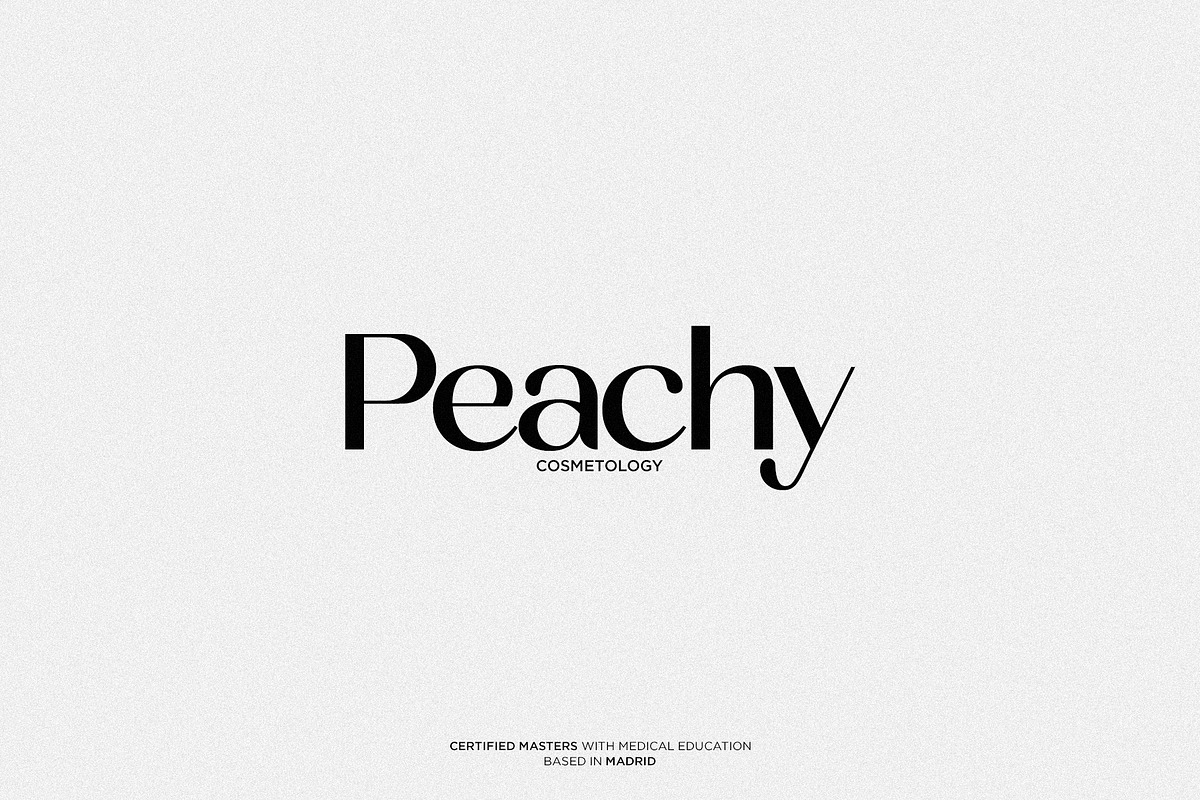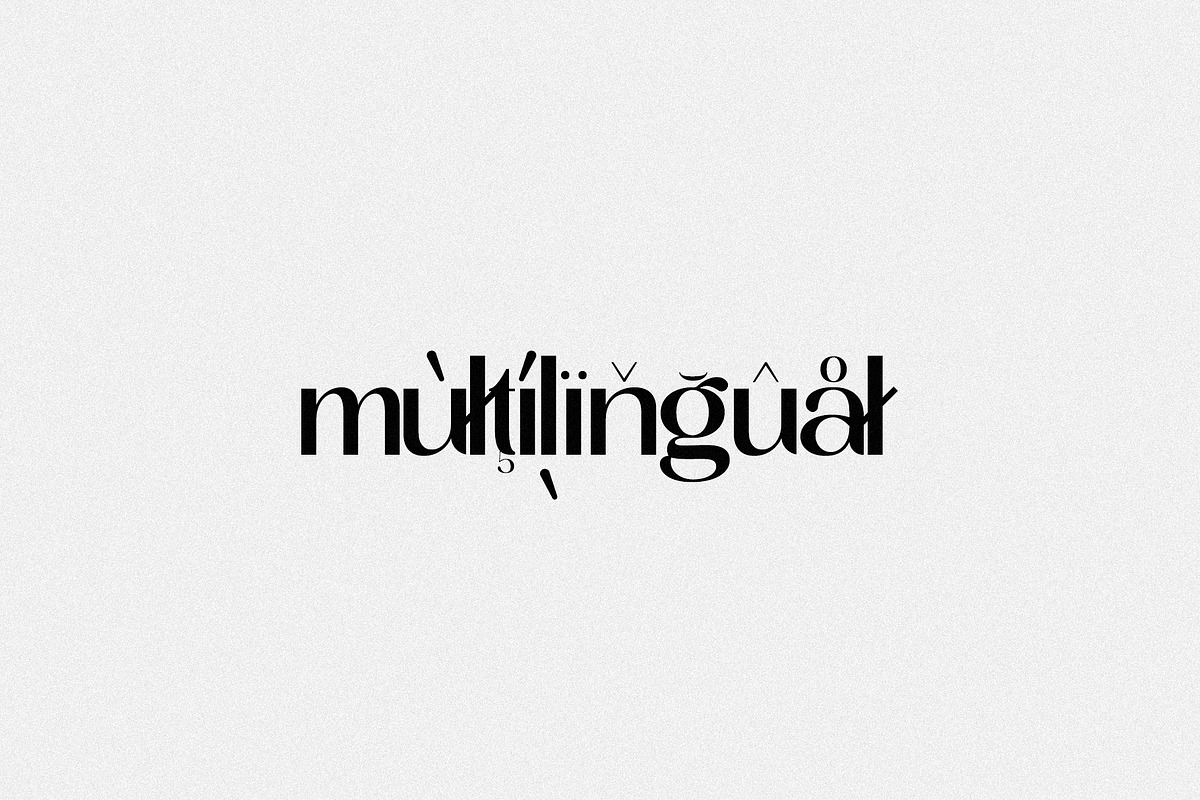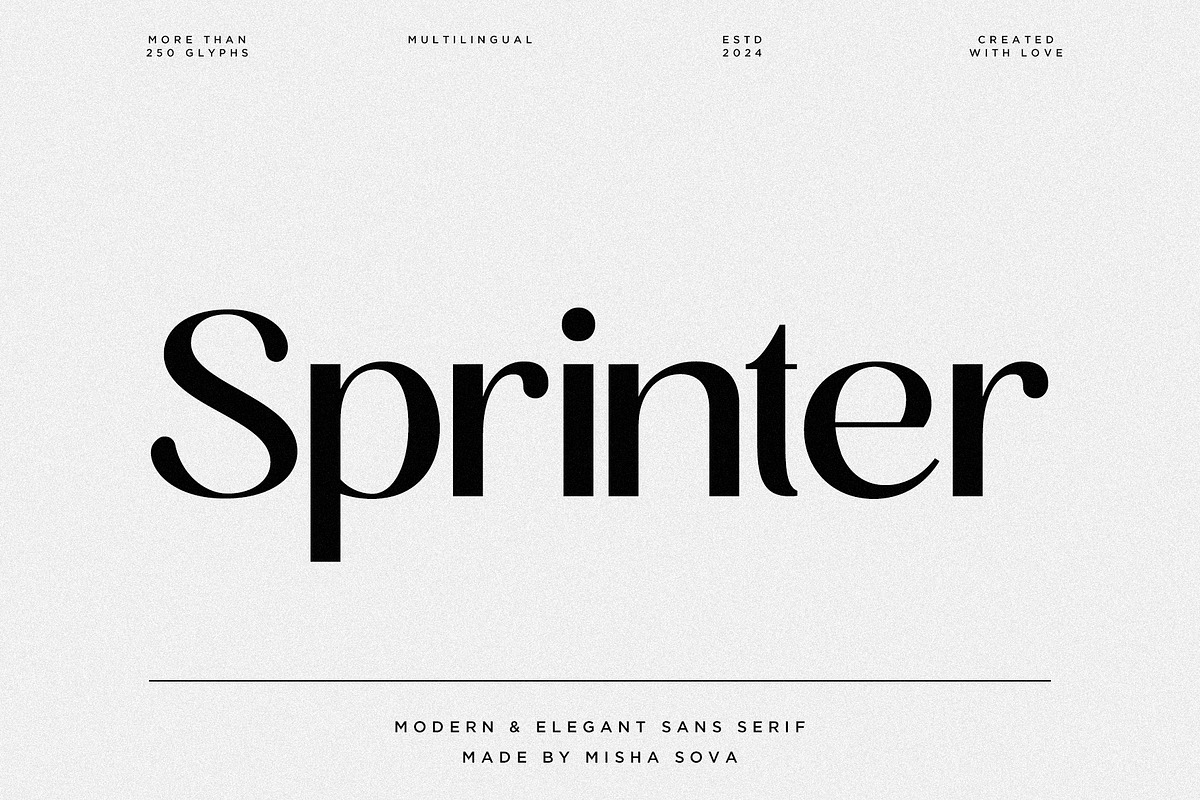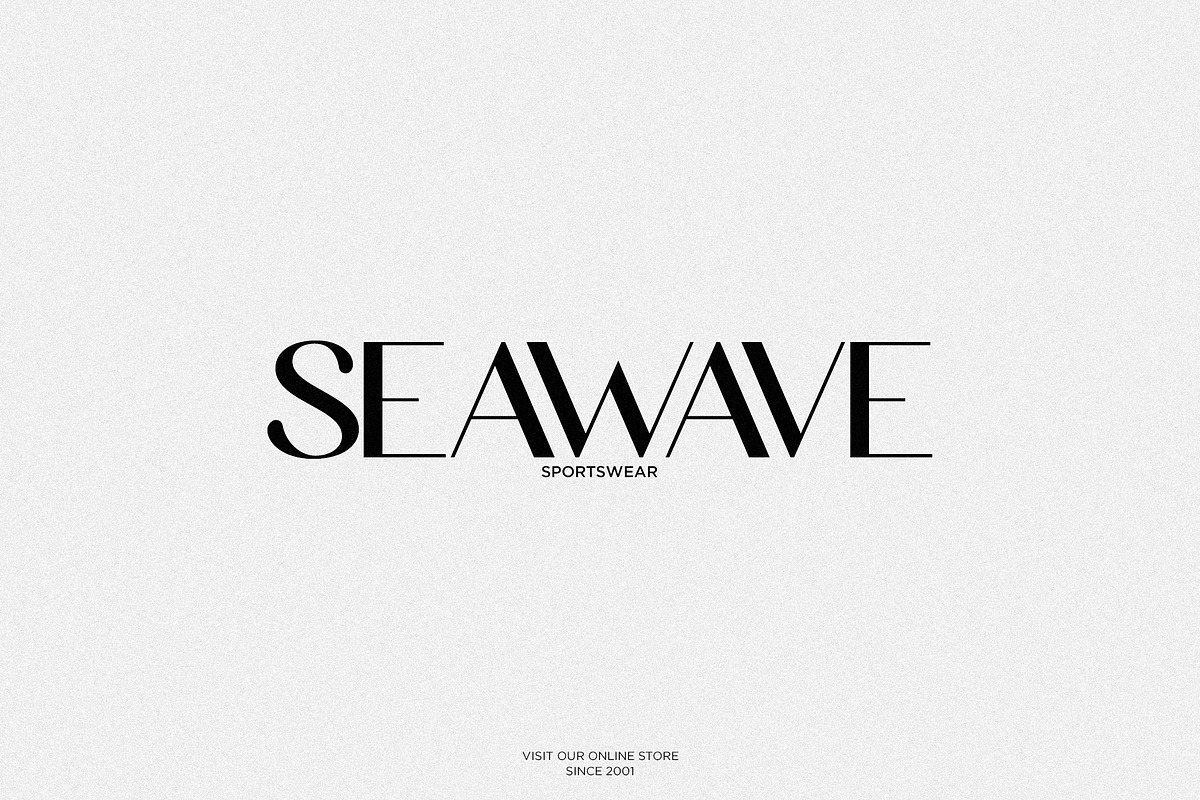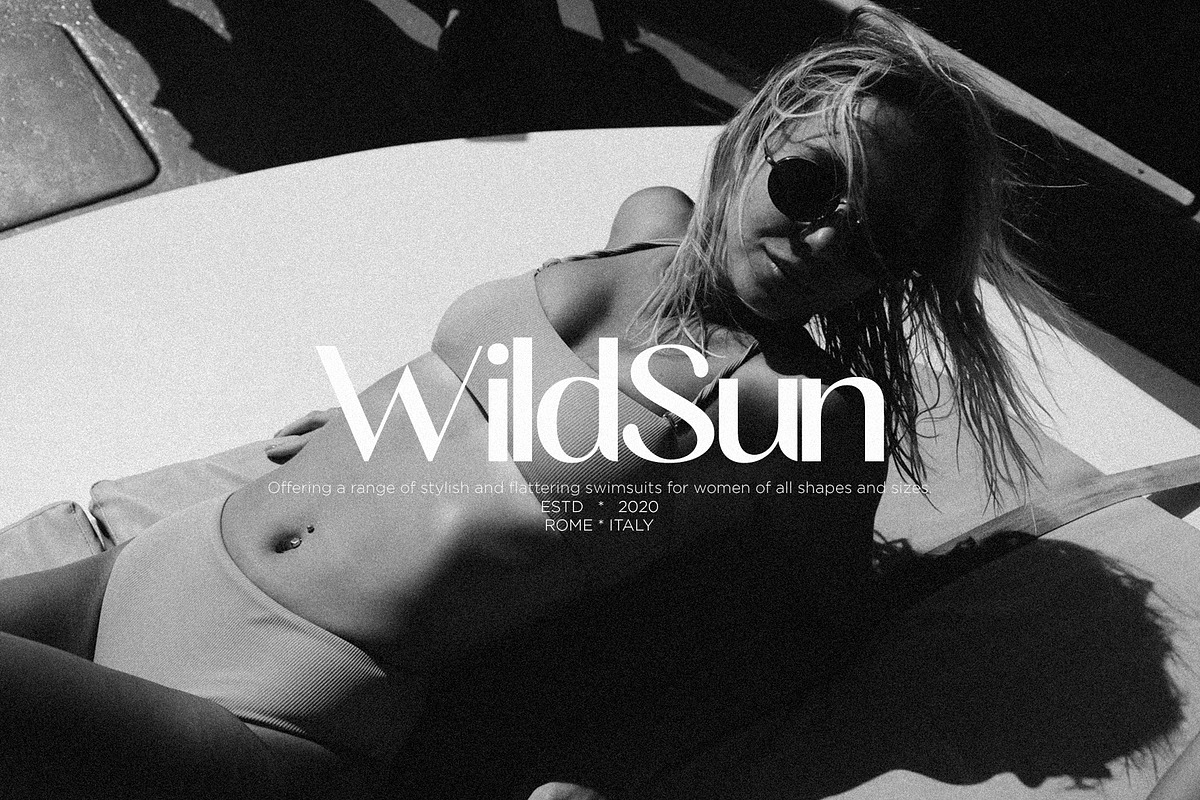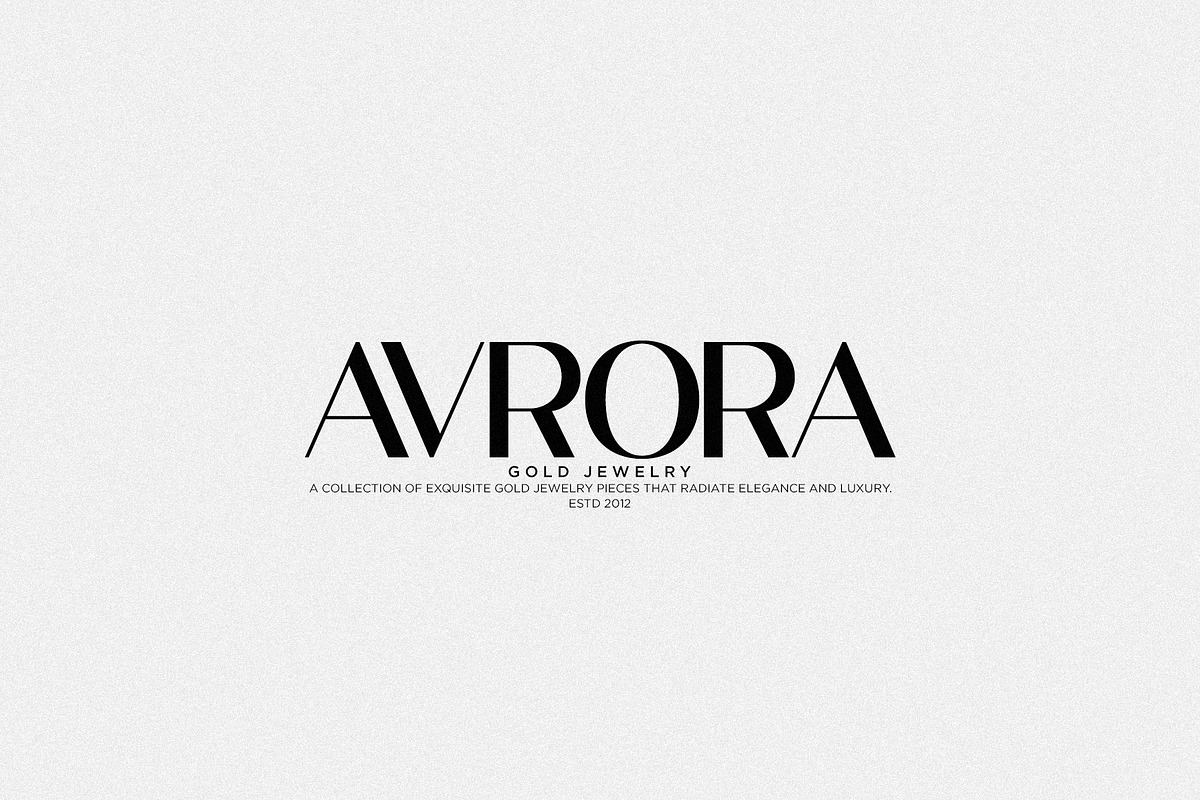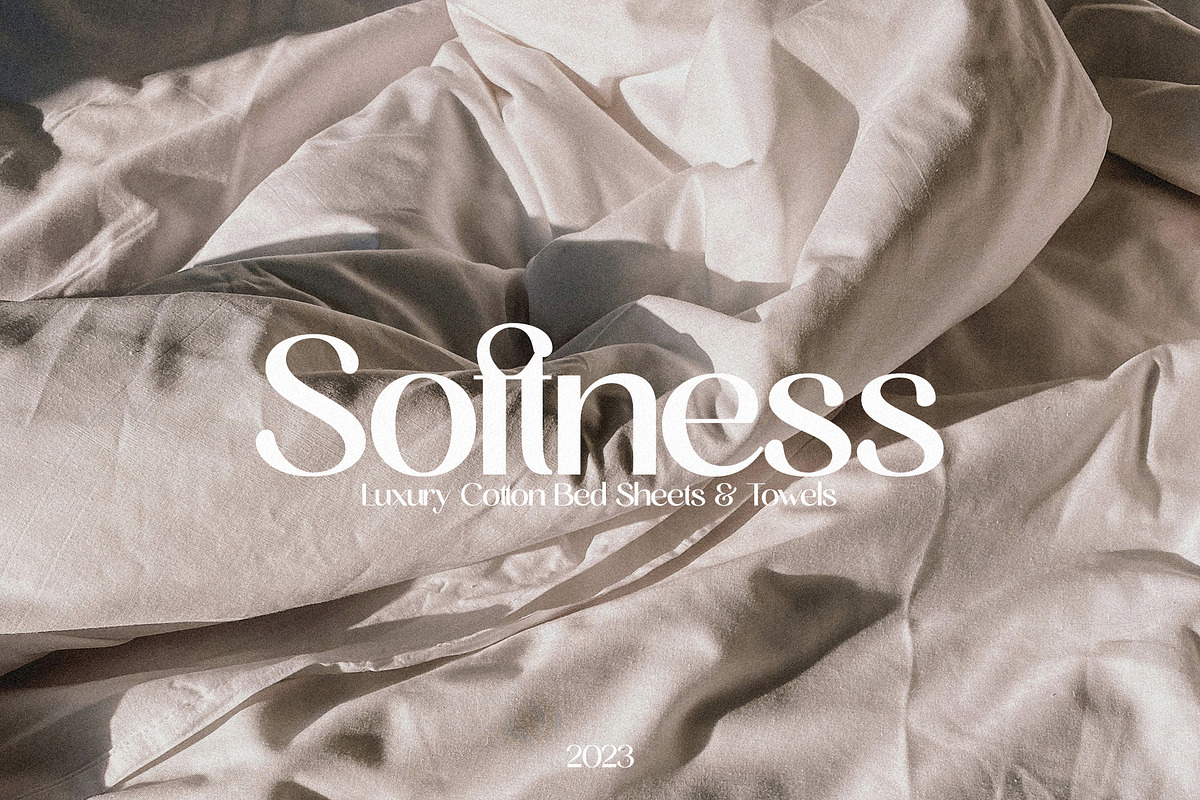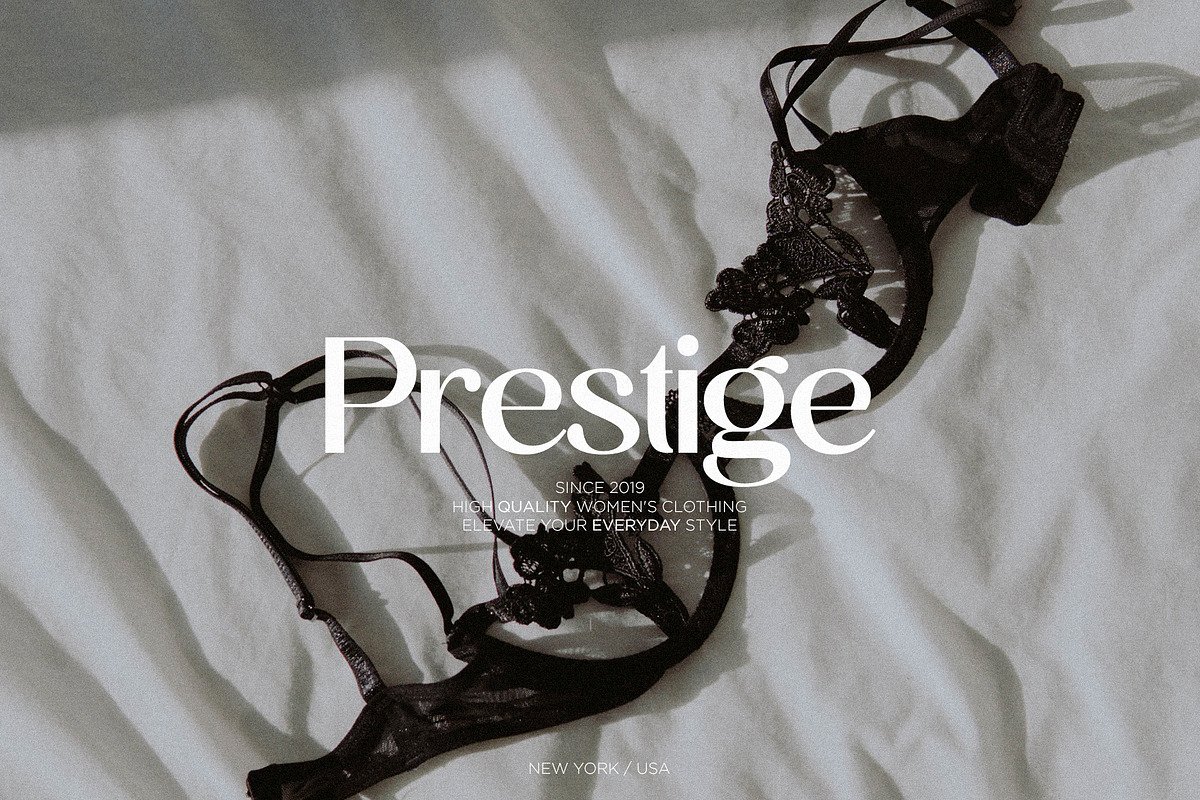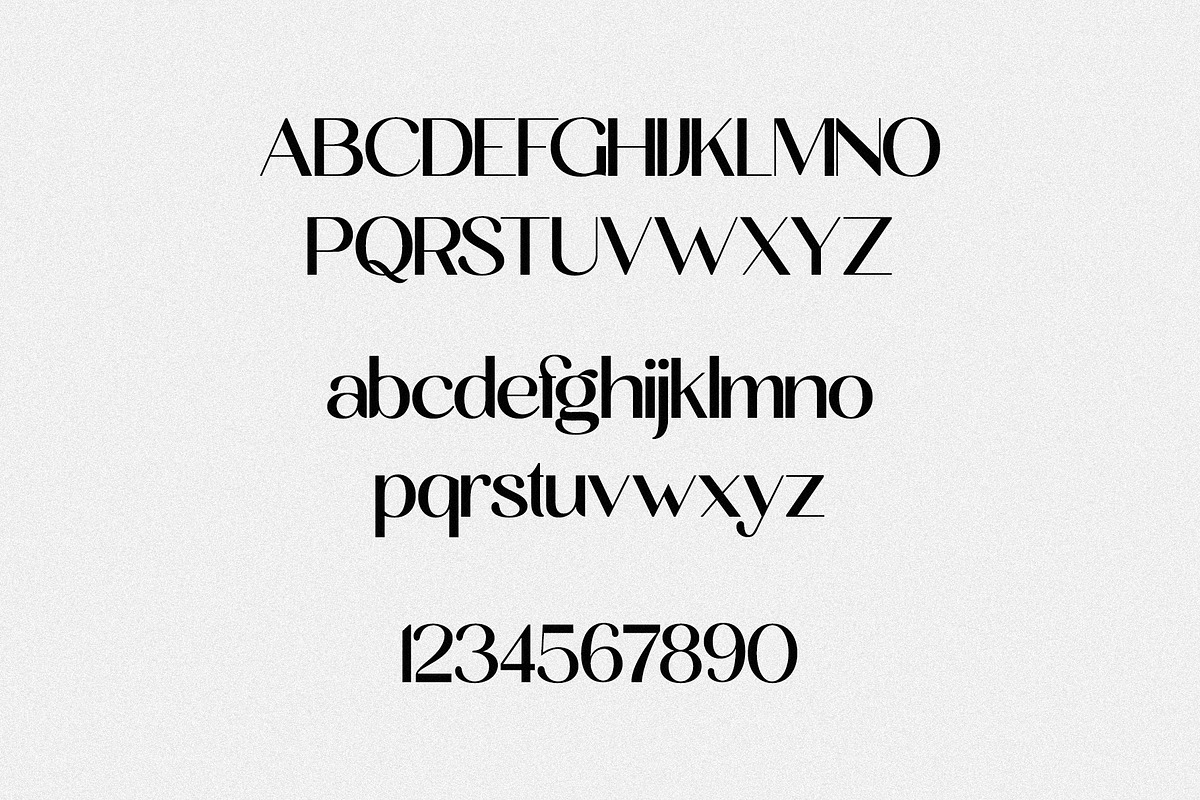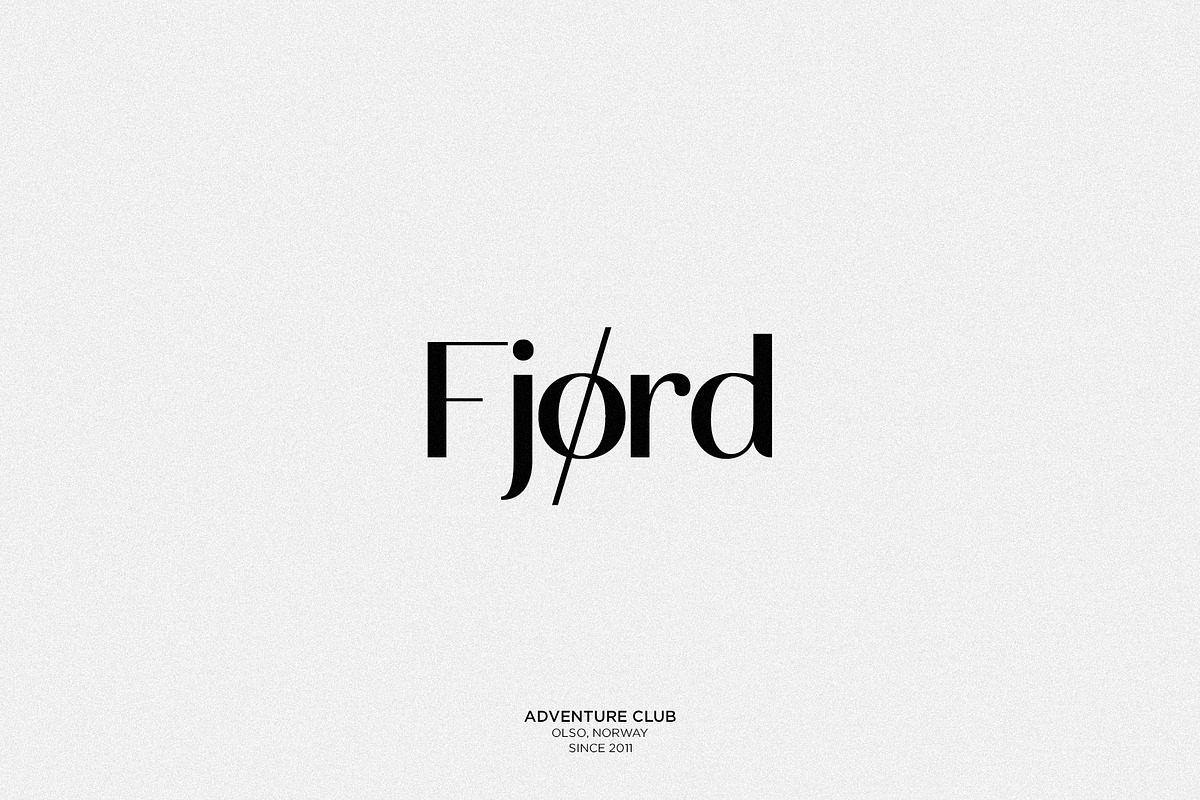
Sprinter - Modern & Elegant Sans
Sprinter - Modern & Elegant Sans by Misha Sova
Sprinter is a modern and elegant sans serif typeface designed for a sleek and sophisticated look. Its clean lines and contemporary style make it perfect for a wide range of design projects, from branding to editorial design. With its versatility and timeless appeal, Sprinter is sure to elevate any design to the next level.
Sprinter features:
- Letters
- Basic Ligatures
- More than 250 glyphs